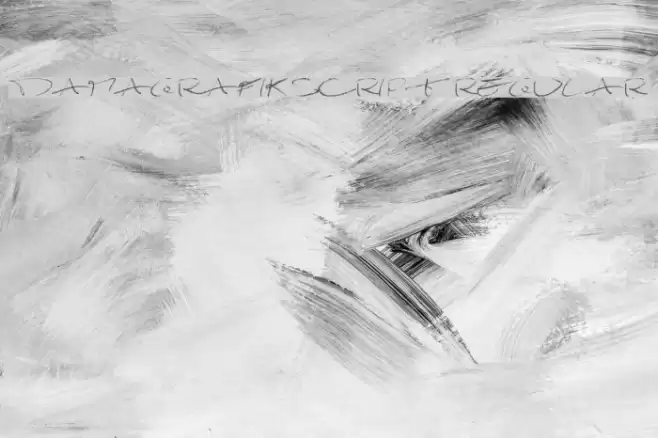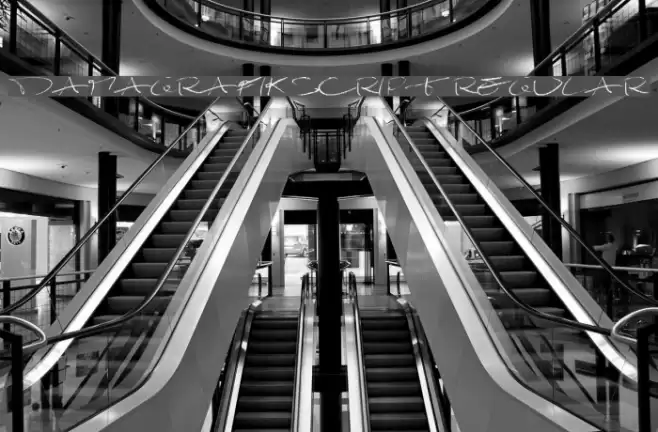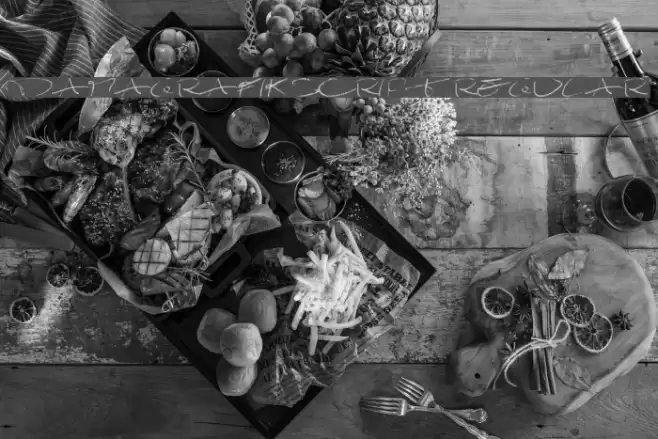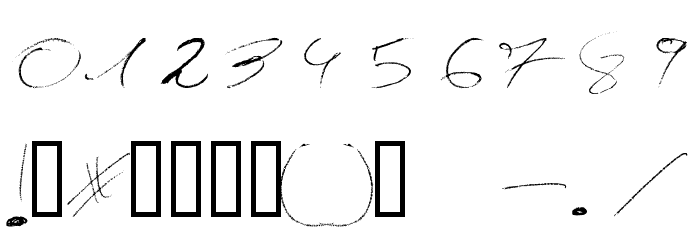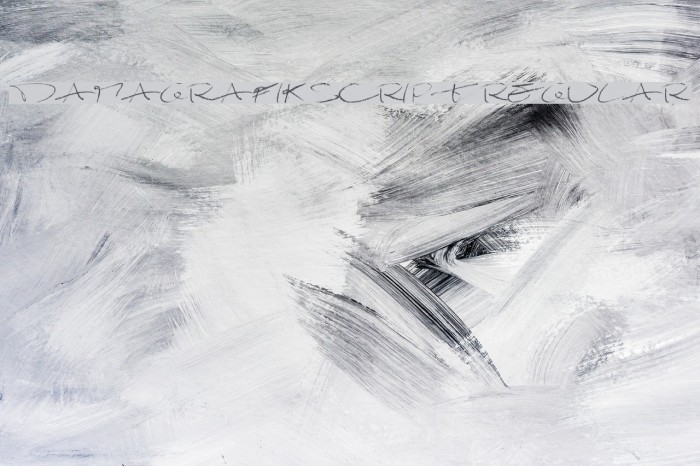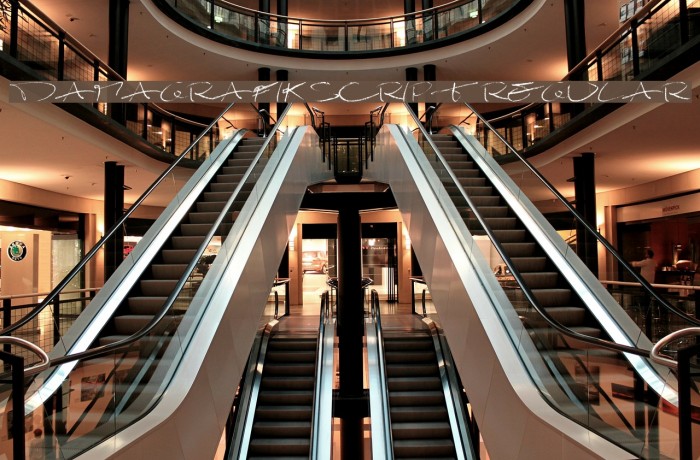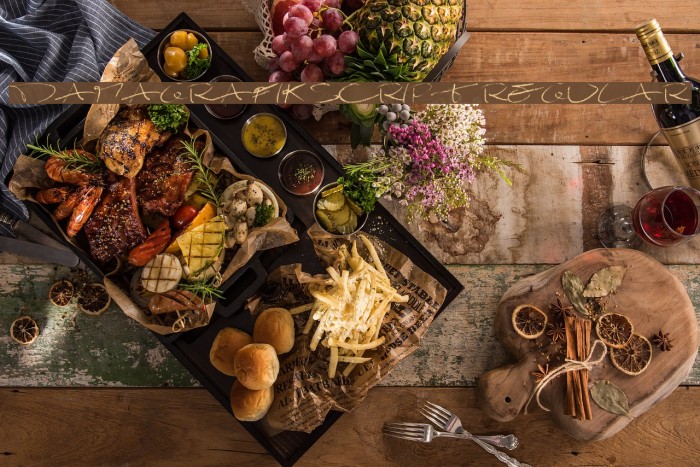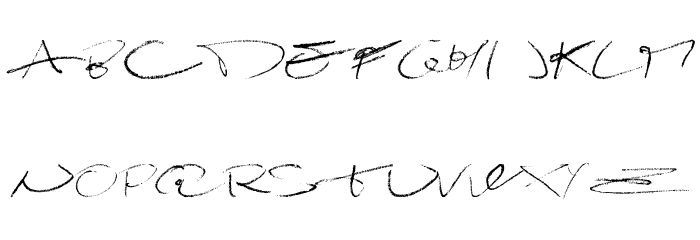
Damagrafik Script Regular Font
Damagrafik Script Regular Description
This font exhibits a dynamic and expressive handwritten style, characterized by its fluid and spontaneous strokes. The letters are crafted with a sense of motion, giving an artistic and personal touch to the text. The uppercase and lowercase letters maintain a consistent flow, while the numbers and special characters complement the overall aesthetic. The strokes vary in thickness, adding a textured and lively appearance. This font is ideal for projects that require a personal, artistic, or informal touch, such as invitations, greeting cards, or creative branding.
A dynamic and expressive handwritten font with fluid strokes from Handwritten fonts.
- Proposed Projects: Ideal for invitations, greeting cards, artistic branding, and personal projects.
- Overall Style: Artistic
- Use Case: Logos, Headlines, Creative projects